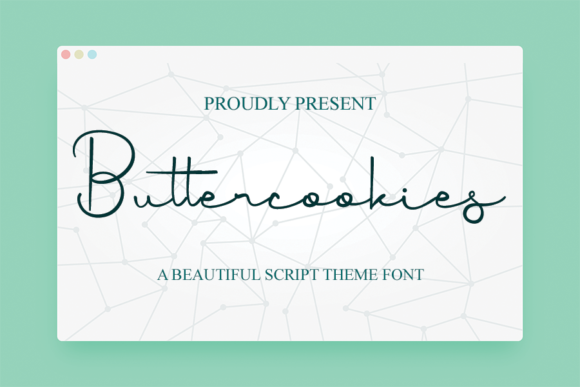
About Butter Cookies Font
Butter Cookies is a delicate and elegant thin cursive script font. With its neat craftsmanship and intricate detailing, this font is a valuable asset to your font library. Regardless of the topic, Butter Cookies has the potential to enhance any creation with its charming and refined appearance.
The thin and graceful strokes of Butter Cookies add a touch of elegance to your typography. Its cursive style exudes a sense of sophistication and delicacy, making it suitable for a wide range of design projects. Whether you’re working on branding materials, invitations, packaging, posters, or any other creative endeavor, this font will elevate your designs and give them a refined and polished look.
The careful craftsmanship and attention to detail in Butter Cookies make it a reliable choice for enhancing the visual appeal of your creations. Every curve and loop is meticulously designed, ensuring a seamless and harmonious flow of characters. This level of precision makes it a versatile font that can adapt to various design styles and themes.
No matter the topic or purpose of your design, Butter Cookies adds a delightful and enchanting touch. Its refined nature brings a sense of sophistication to your projects, making them visually captivating and memorable.
So, add Butter Cookies to your font library and discover its potential to enhance your creations. Let its delicate and highly detailed style elevate your designs and leave a lasting impression on your audience.